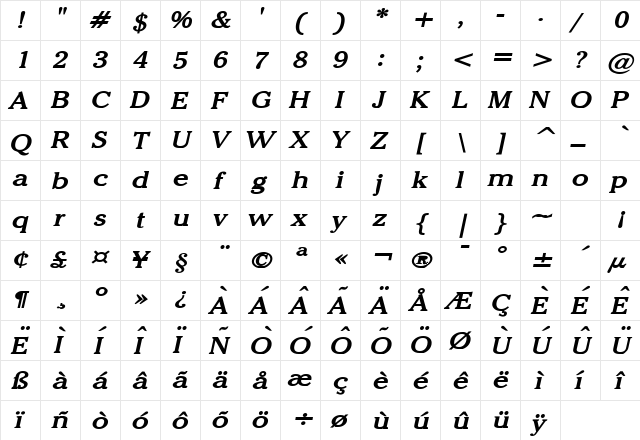
Chelsey Wide Bold Italic
Design Context for Chelsey Wide Typeface
Chelsey Wide is a composed and adaptable typeface that performs quietly and consistently across a wide range of design contexts. Its italic angle brings a sense of urgency and motion to the letterforms. Its bold stroke weight gives it real presence on the page.
Pro Tip: Use Chelsey Wide for emphasis, pull quotes, and subheadings where its slanted energy can add rhythm to the layout.